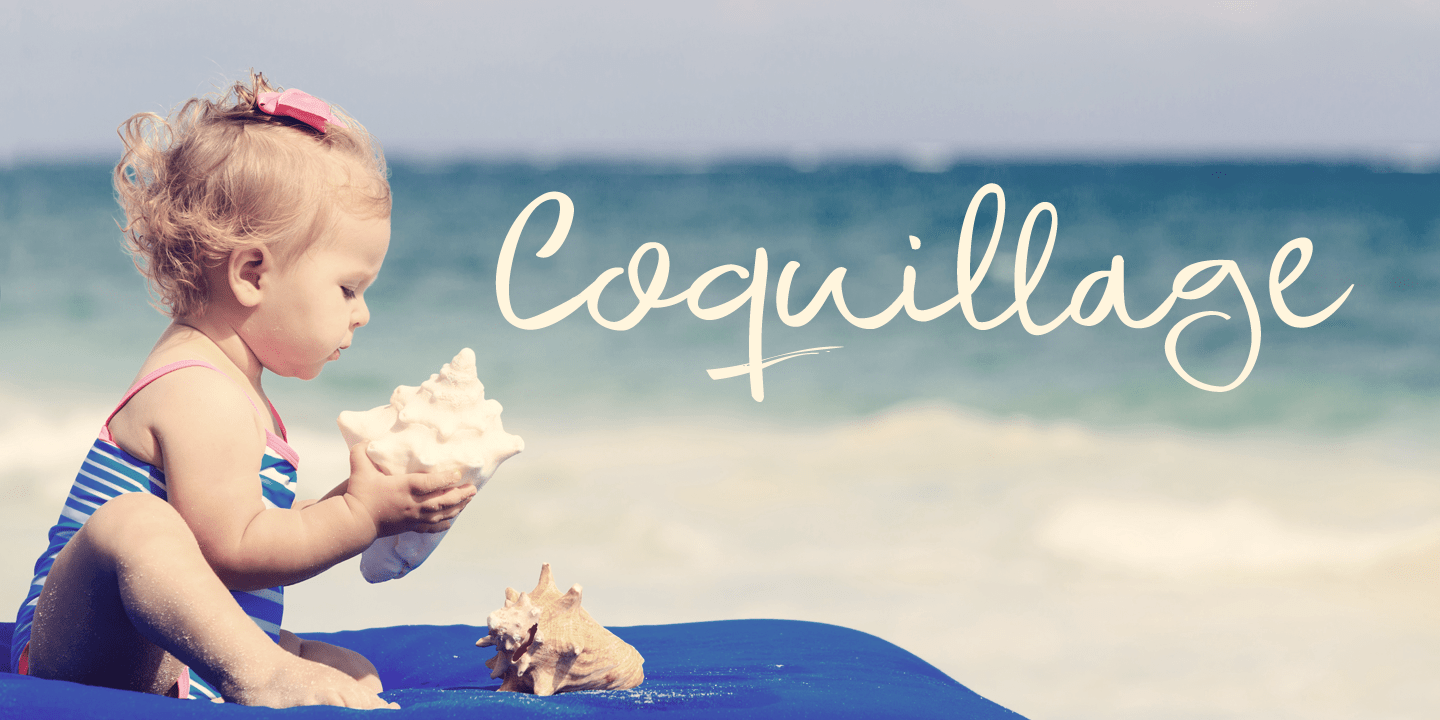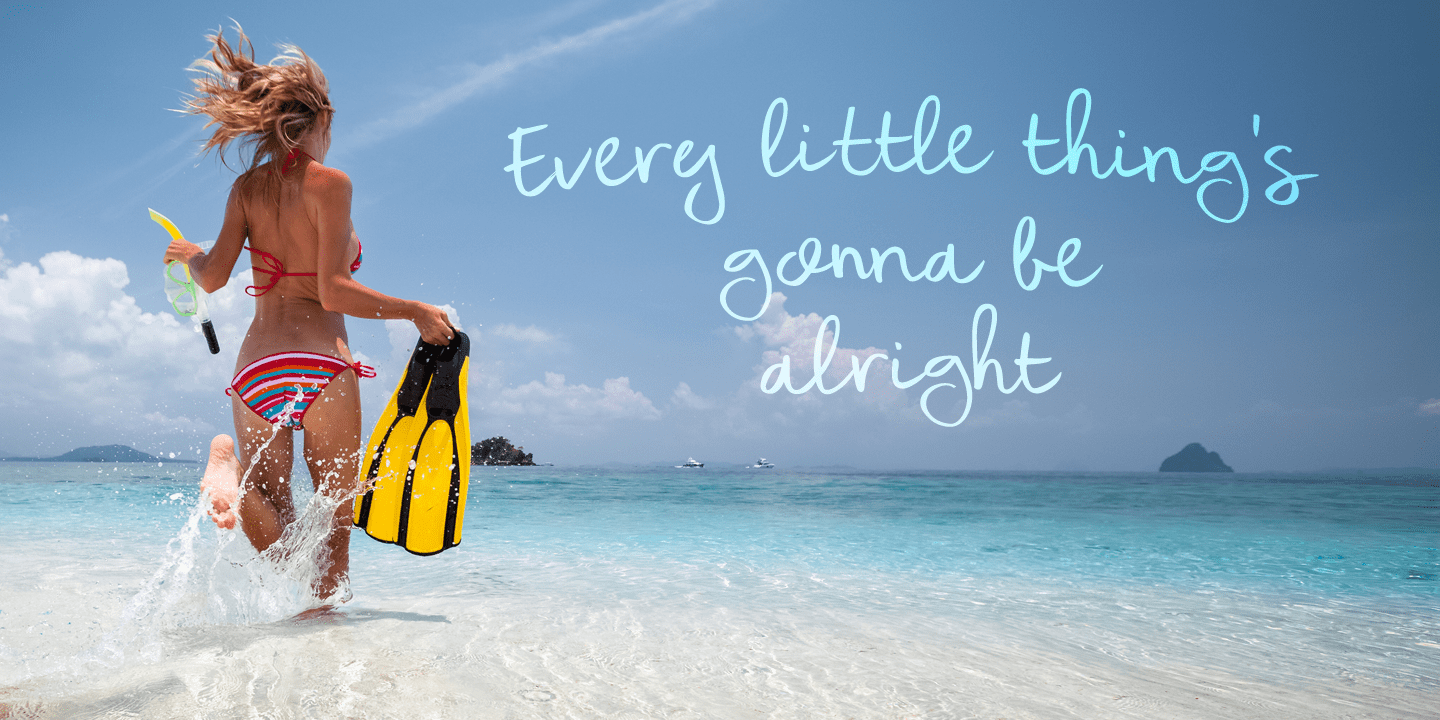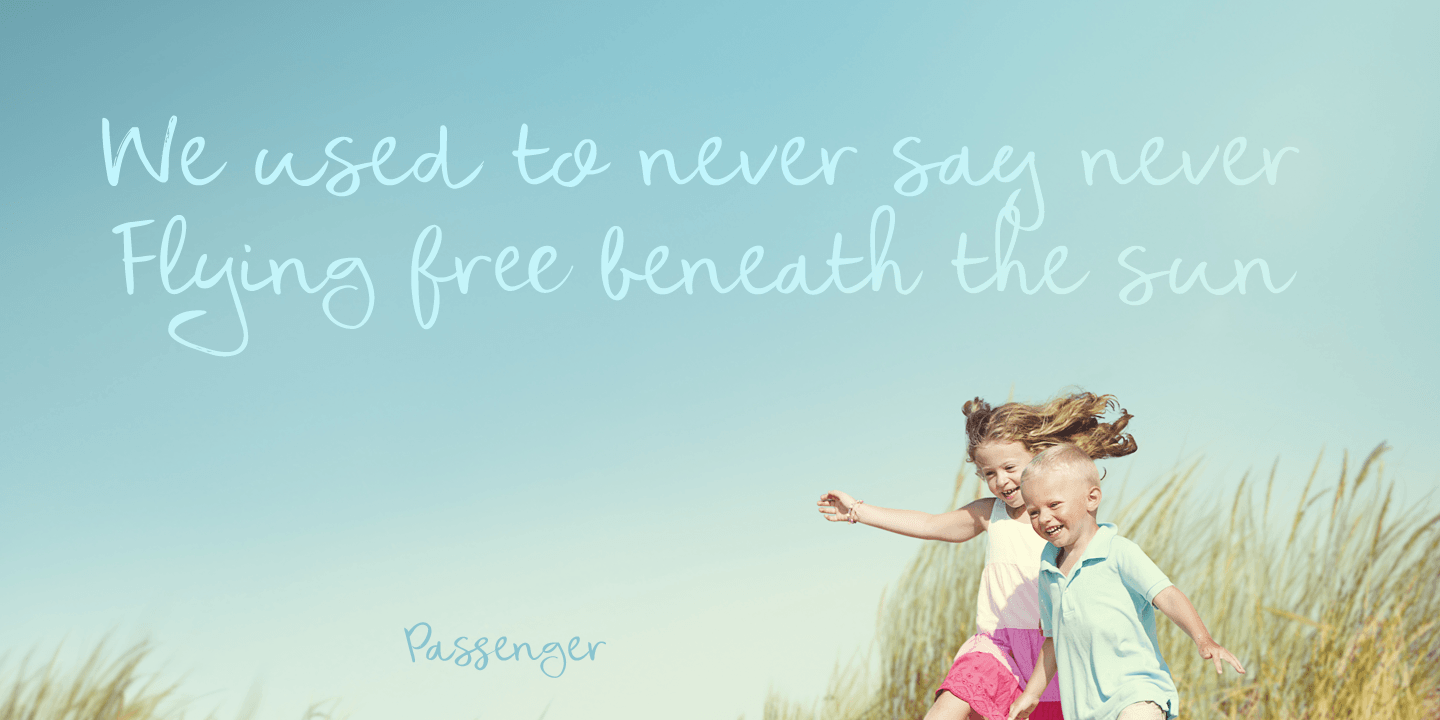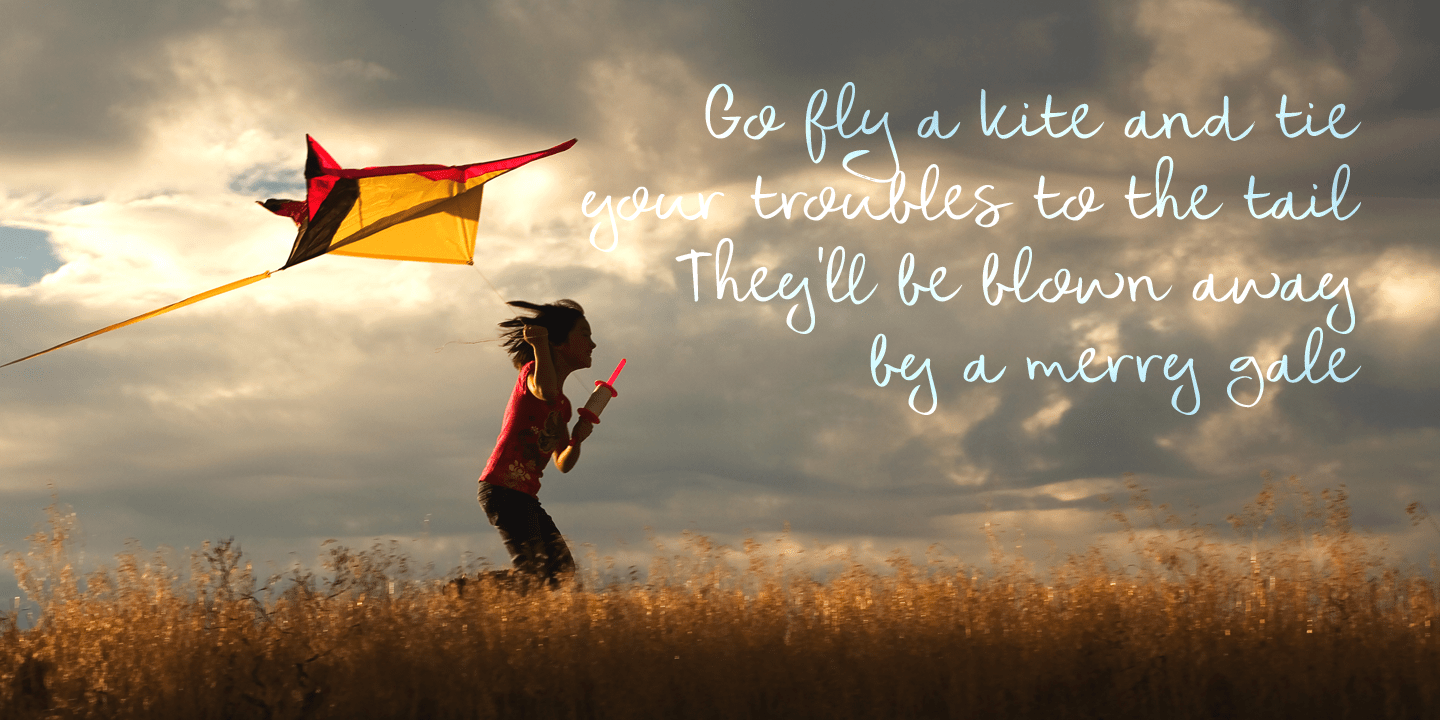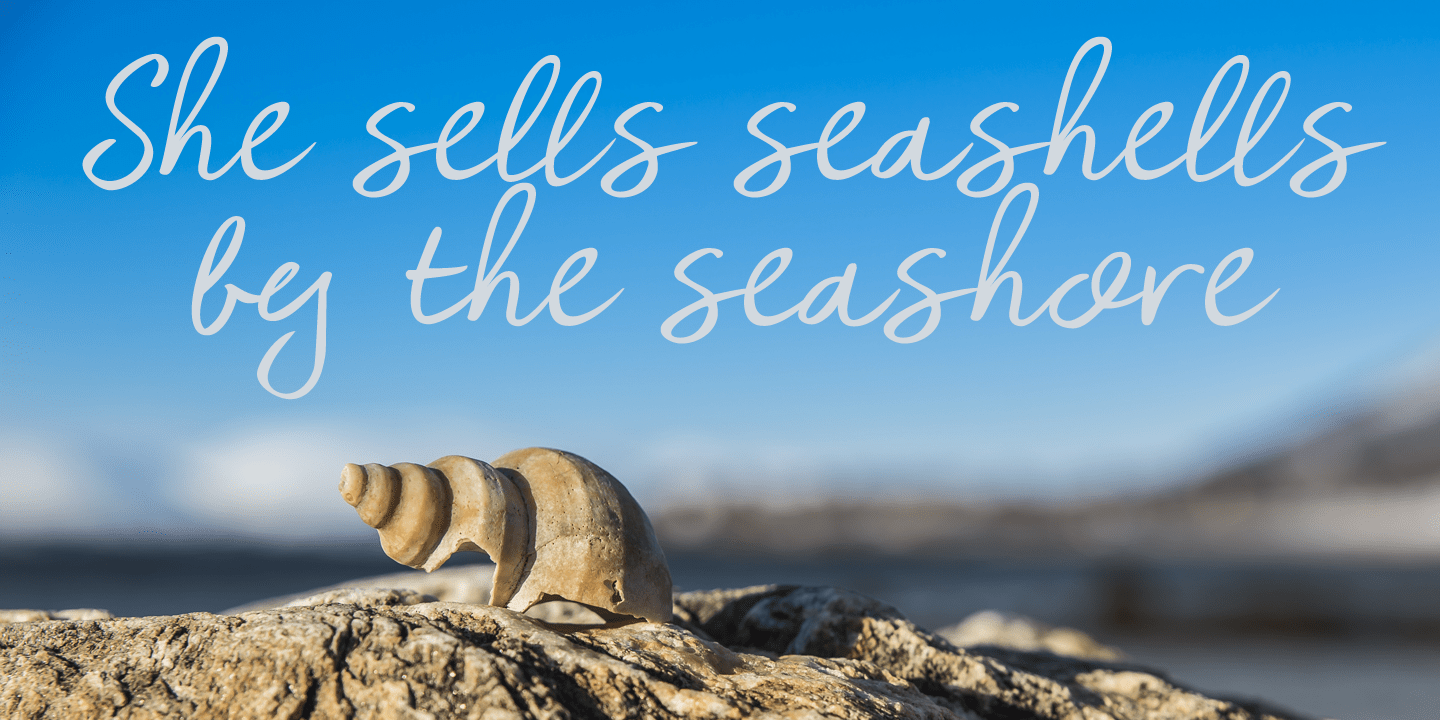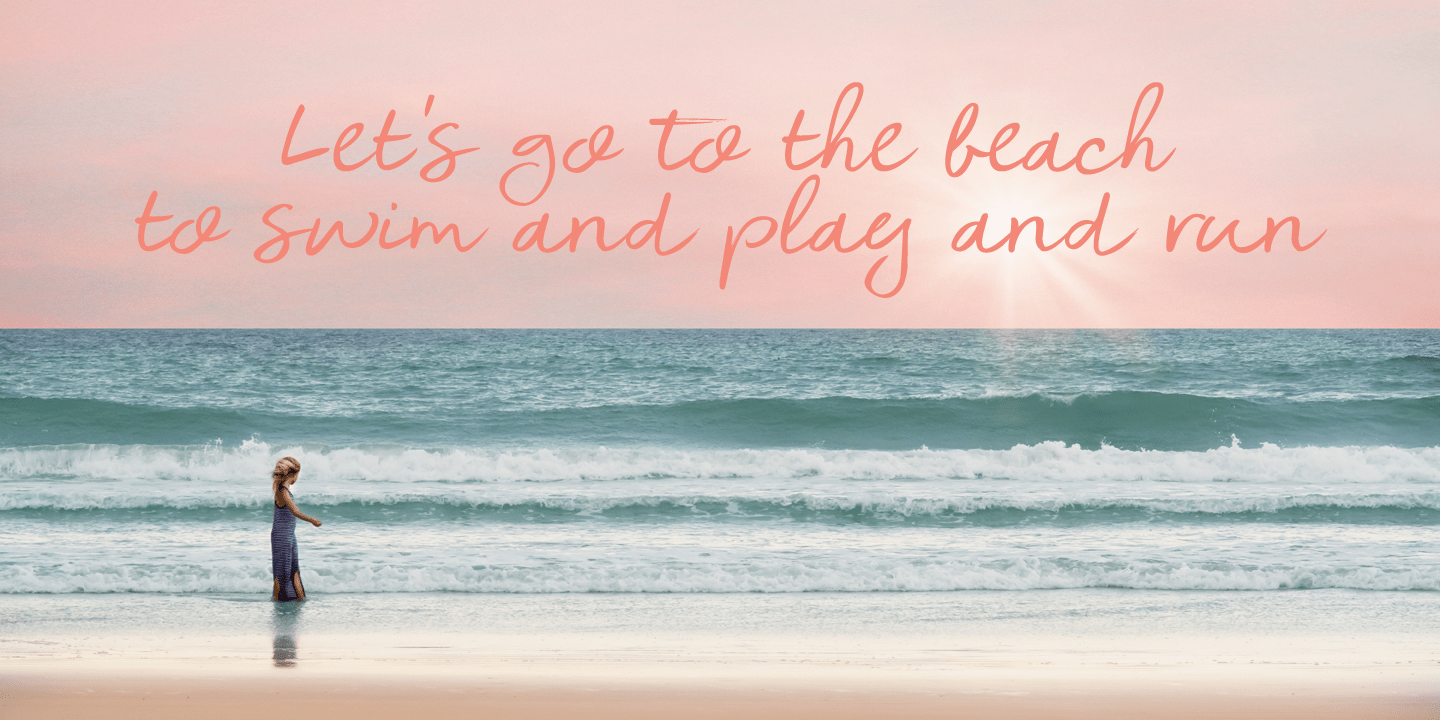
Coquillage
Coquillage is French for seashell or shellfish. Since I?m going to France this year for a camping holiday with my family, I thought it was a good idea to give this charming connected script a ?holiday name?!
Coquillage was handmade with a Japanese pen. It is a lovely connected script and comes with double-letter ligatures and a full range of diacritics.